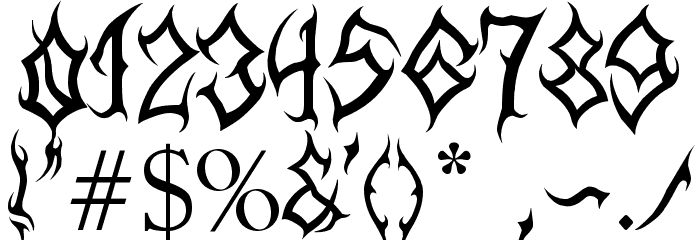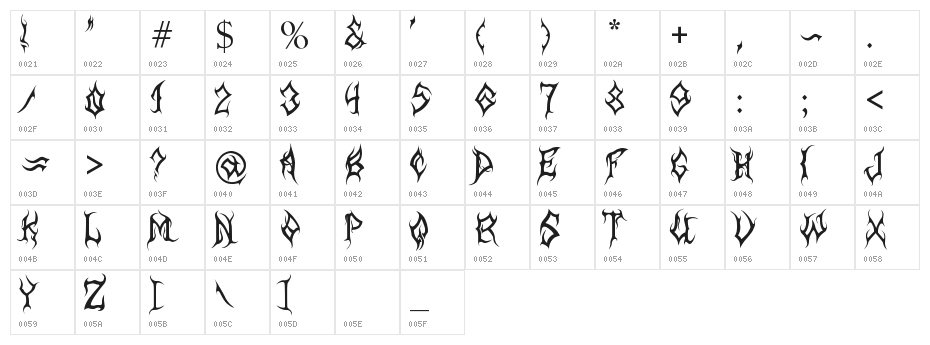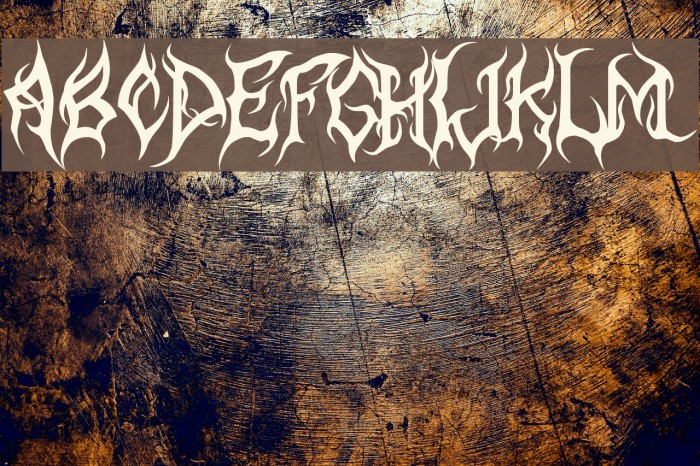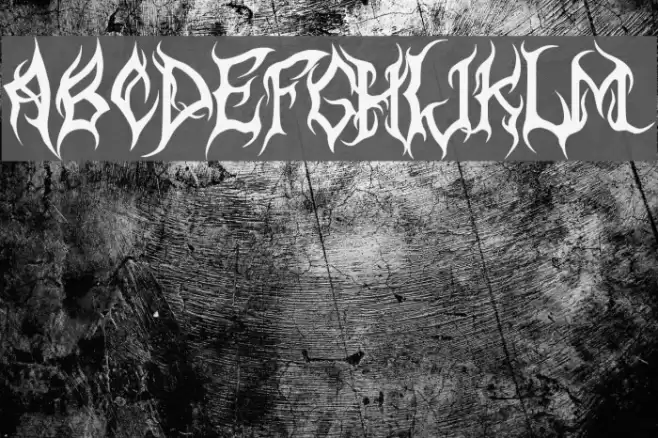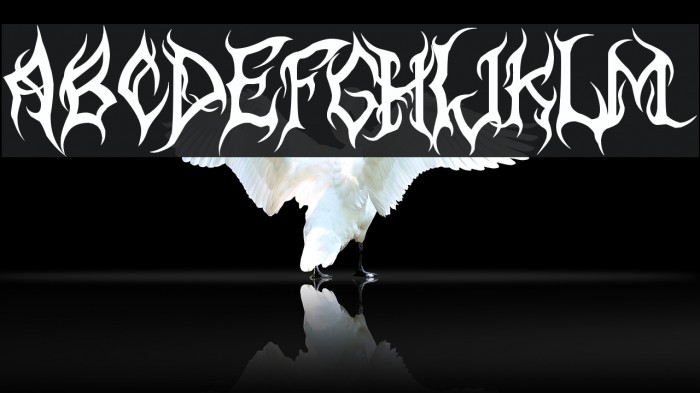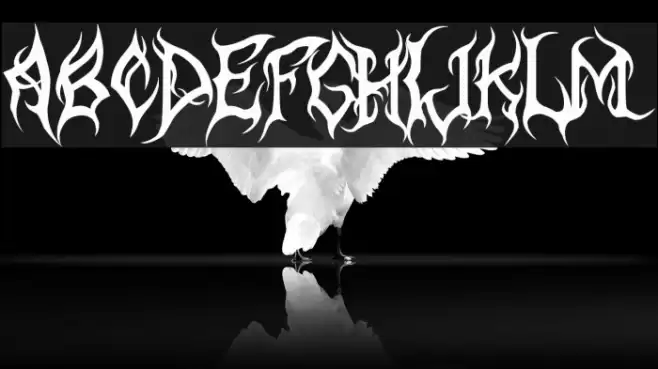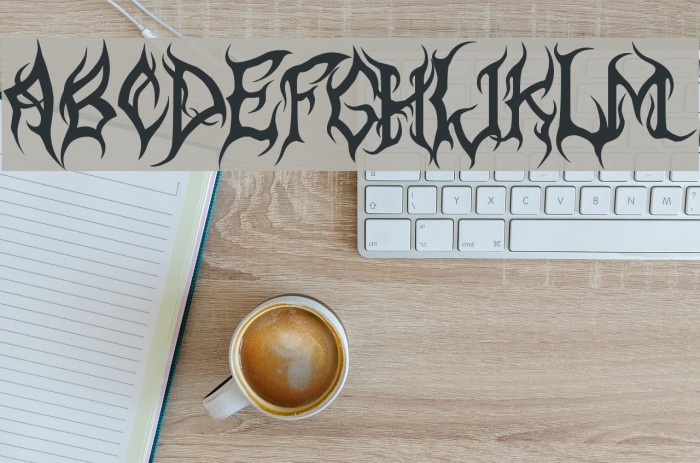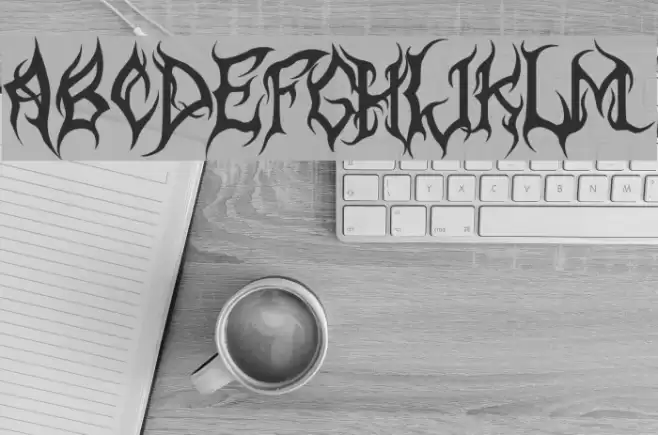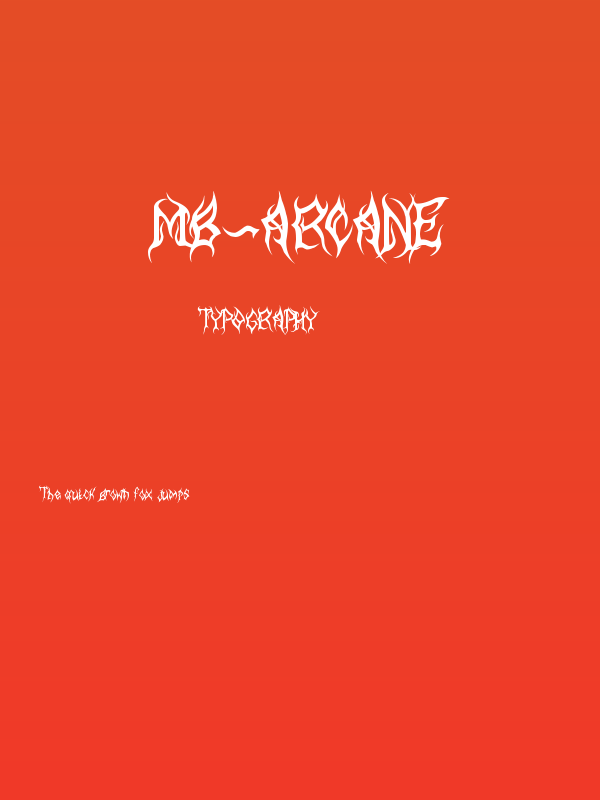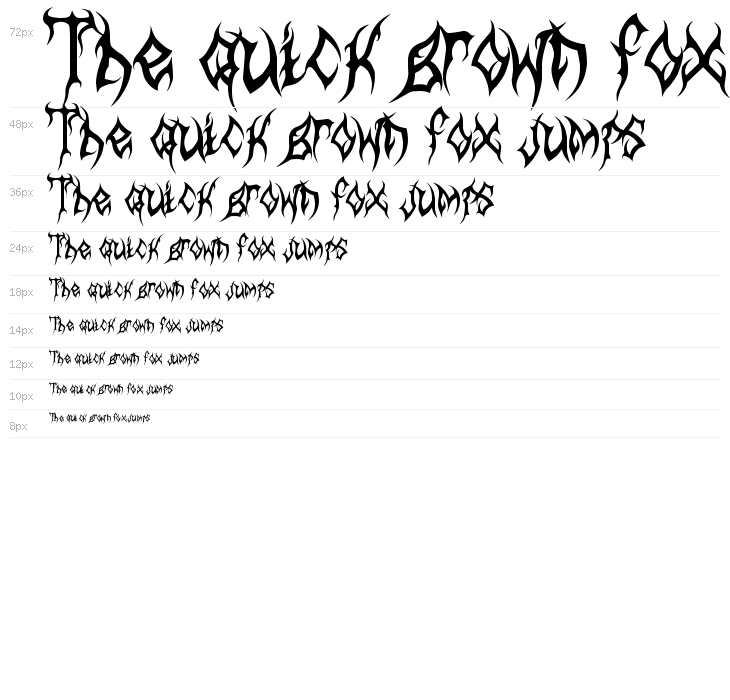
MB-Arcane Font
MB-Arcane Description
This font features a highly decorative and intricate design, characterized by sharp, pointed edges and elaborate curves. The letters are bold and dramatic, with a gothic flair that evokes a sense of mystery and fantasy. Each character is uniquely crafted with an emphasis on angular forms and spiky extensions, creating a visually striking appearance. The font's style is reminiscent of medieval or fantasy themes, making it ideal for projects that require a touch of the arcane or mystical. The numbers and special characters follow the same ornate design, ensuring consistency throughout the typeface.
| Overall Style | Gothic, Fantasy, Decorative |
| Proposed Projects | Ideal for fantasy book covers, game titles, posters, and any project needing a gothic or mystical aesthetic. |